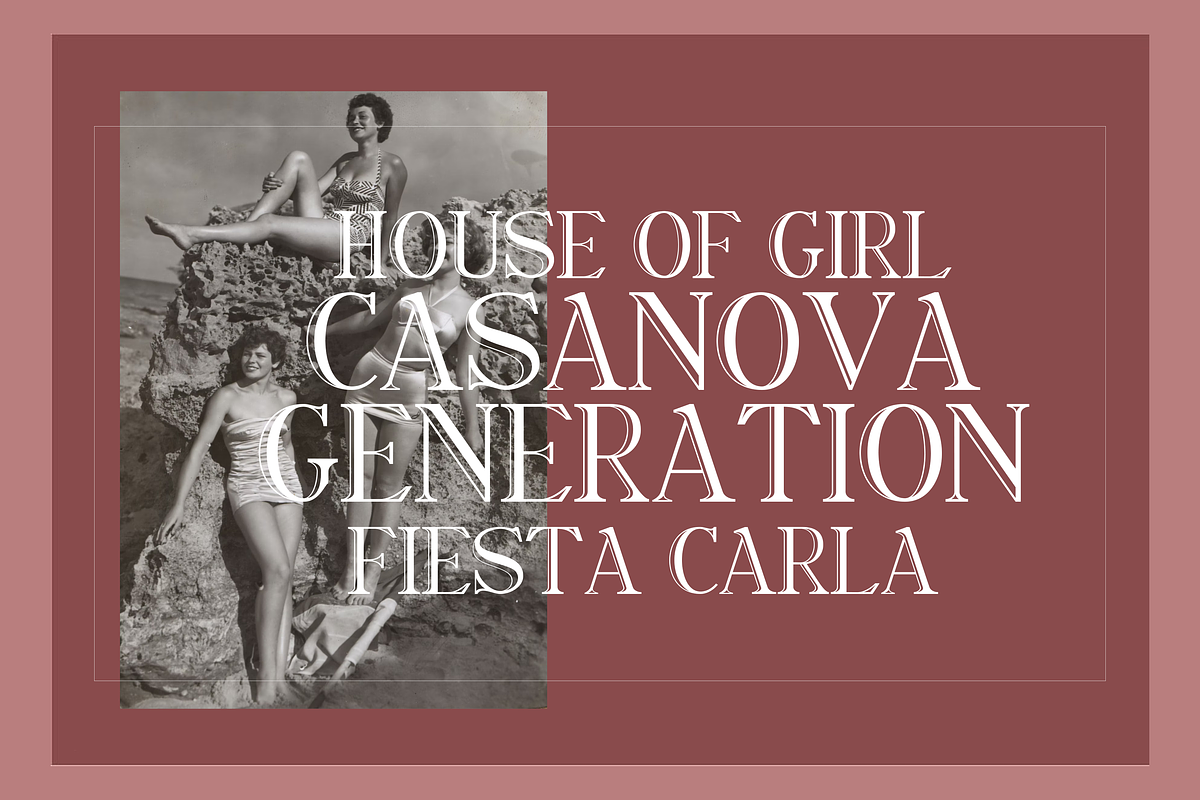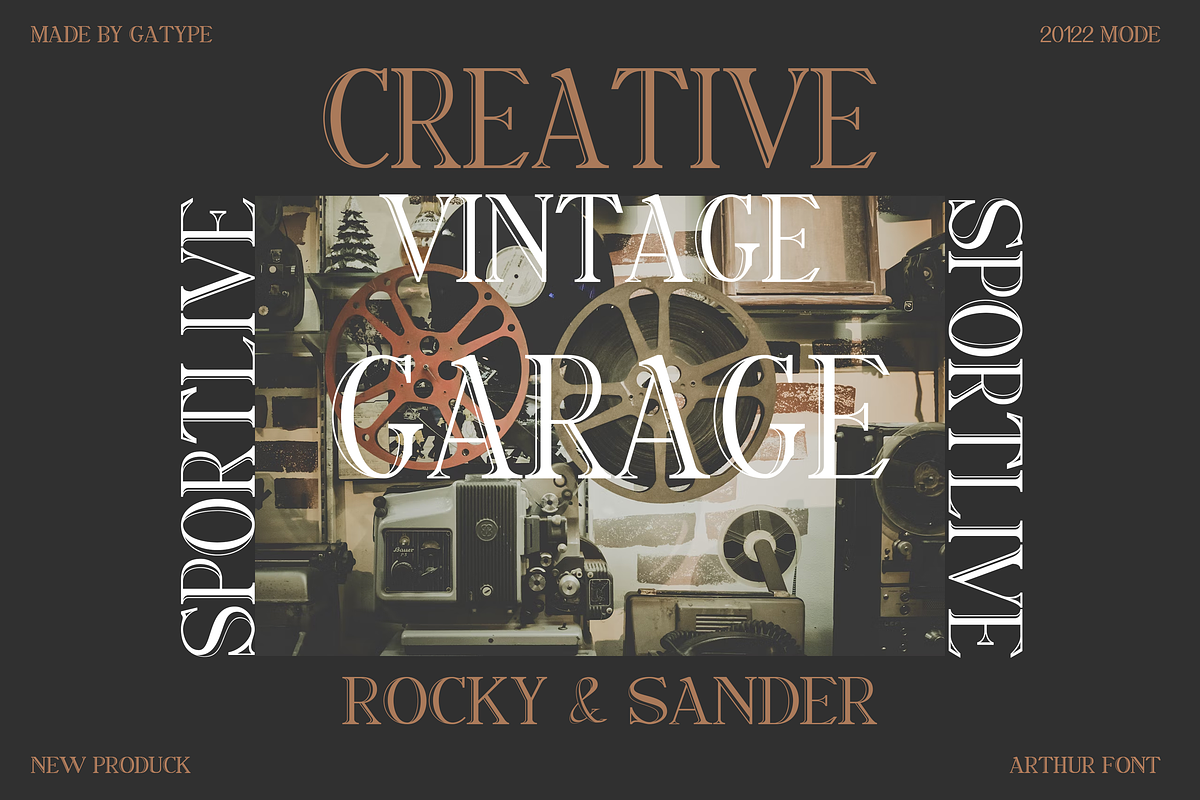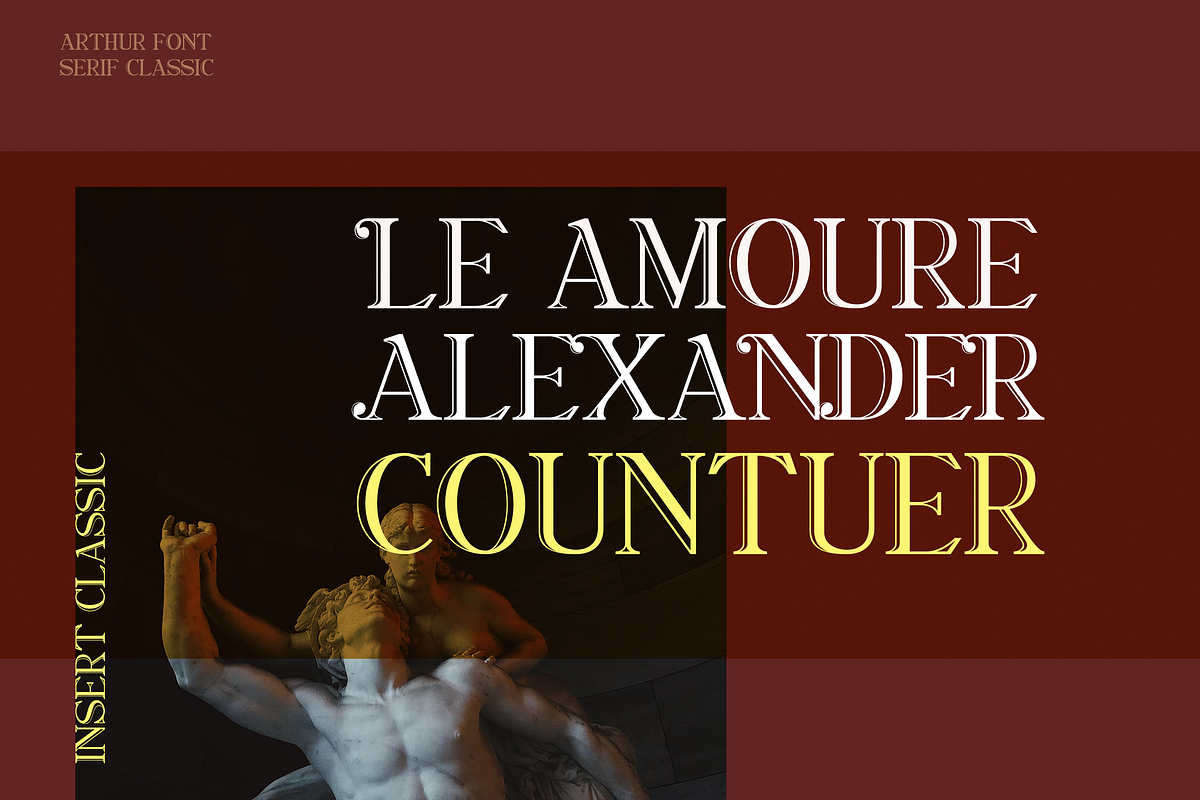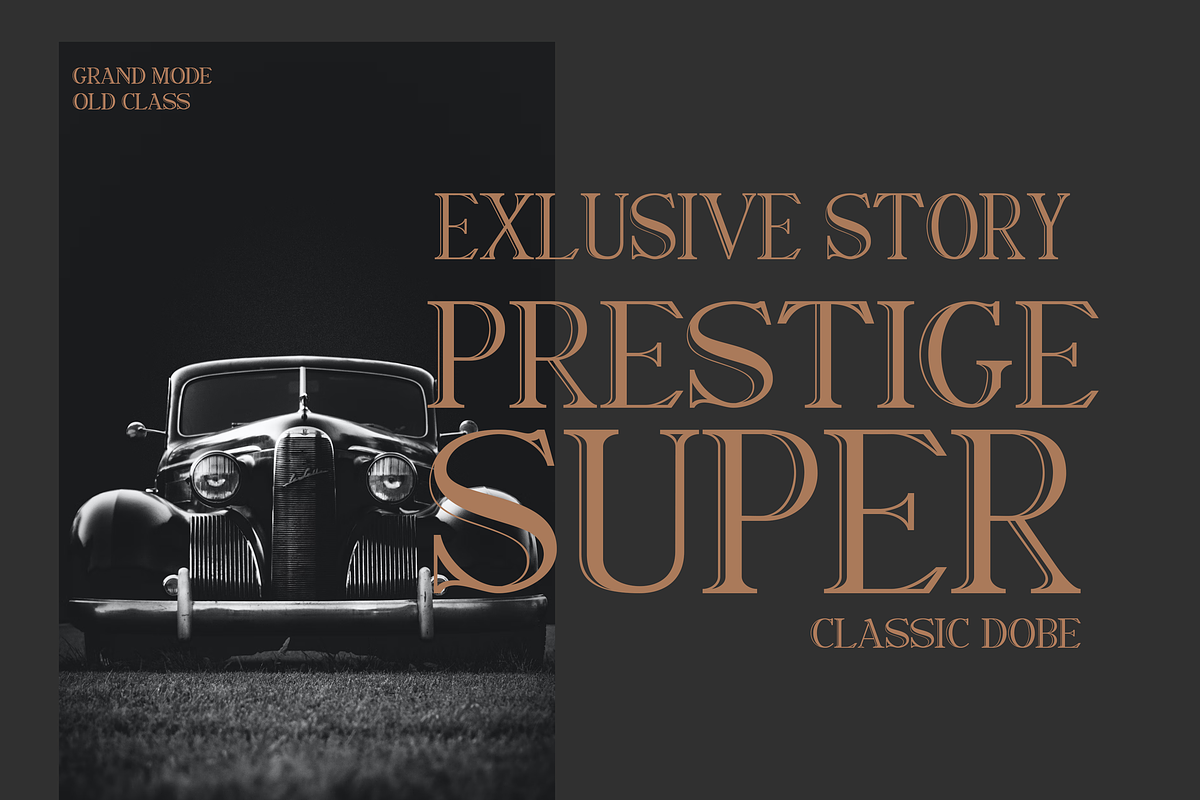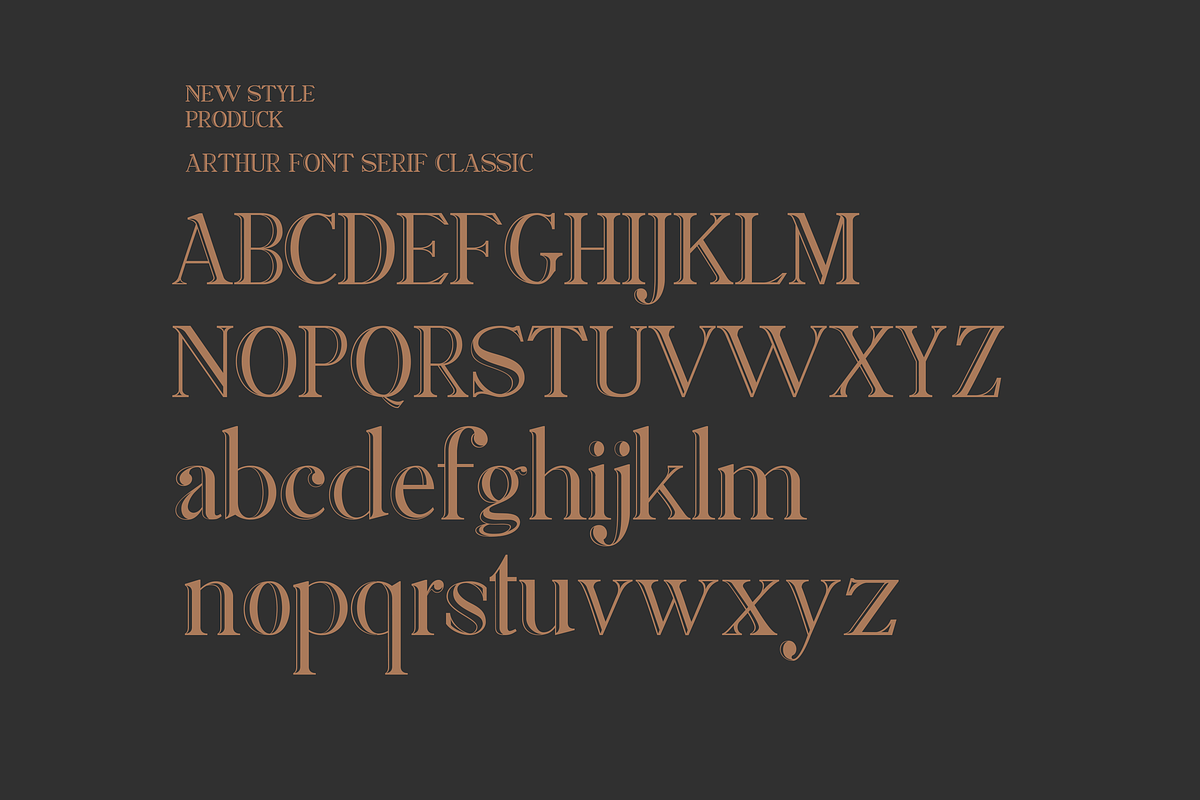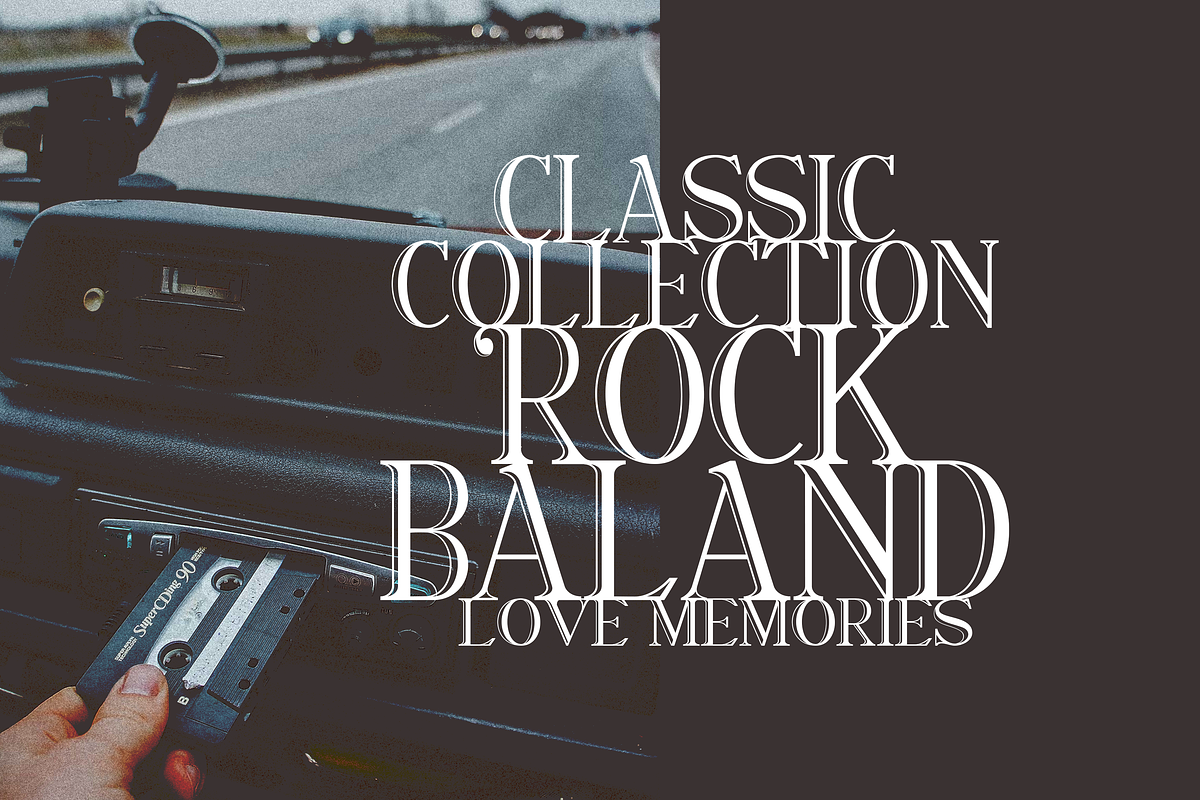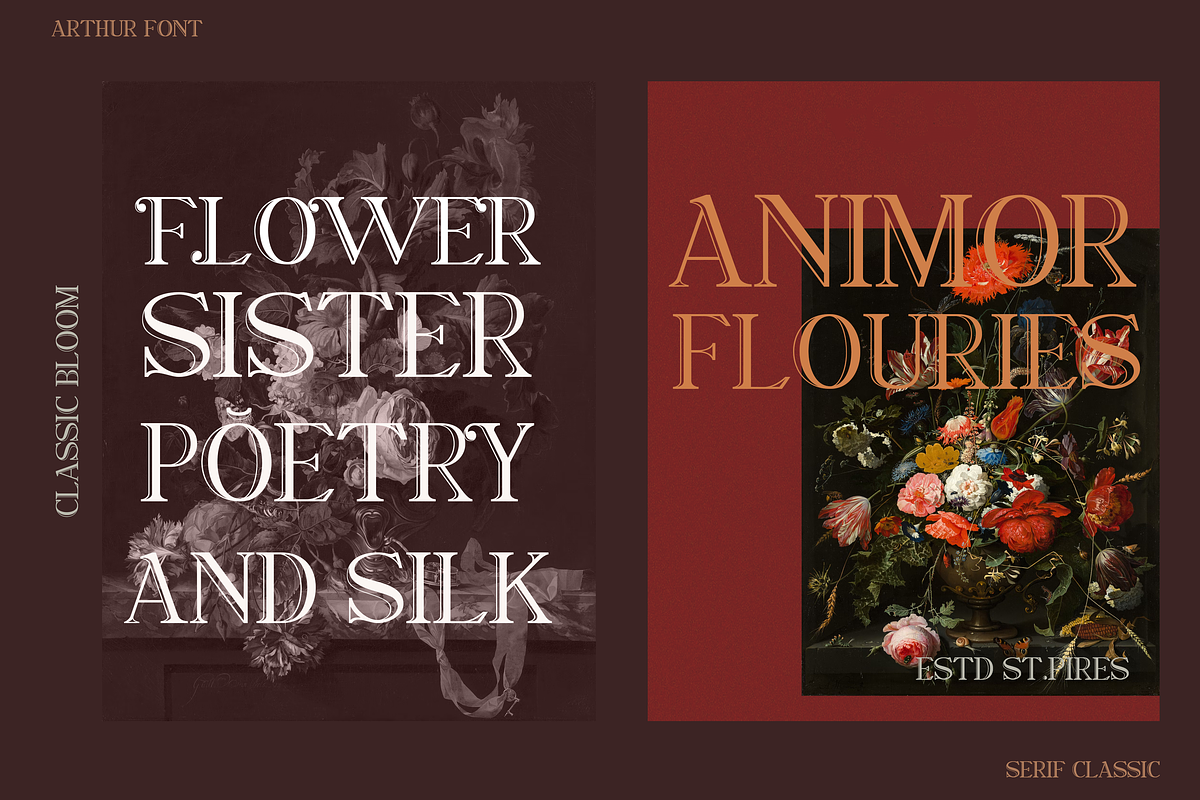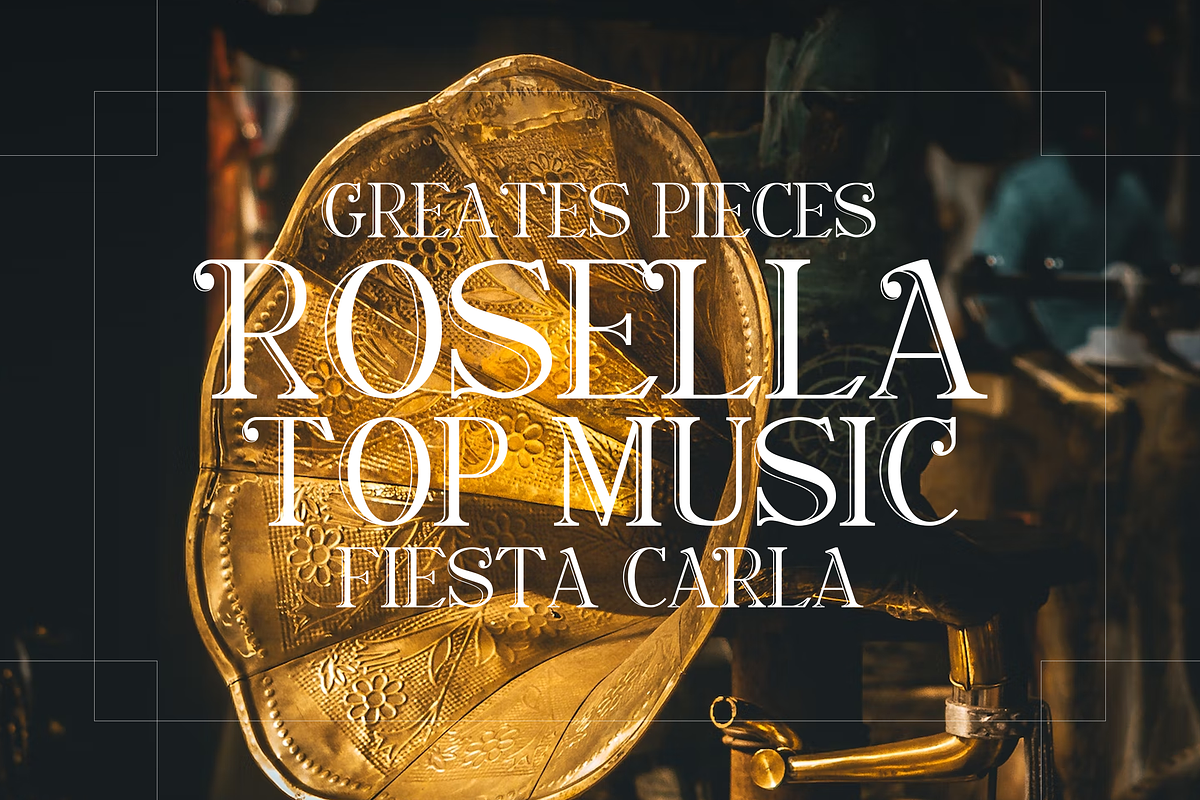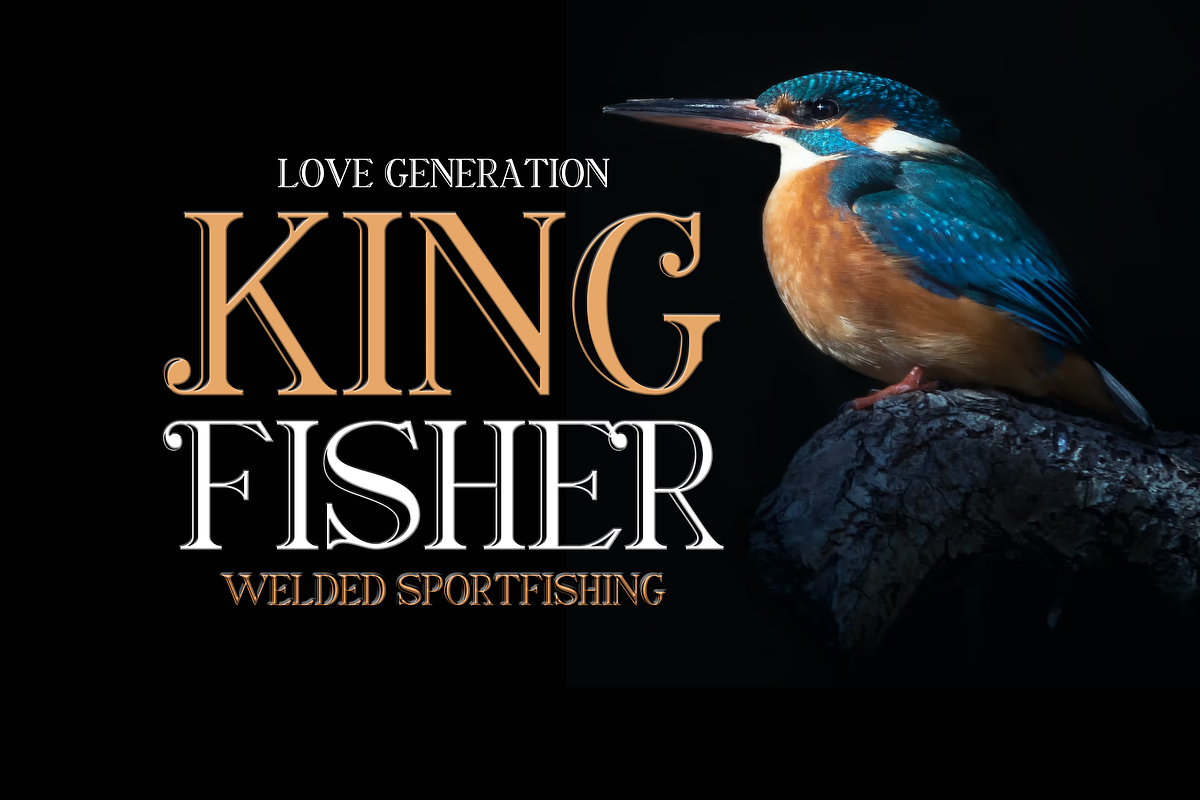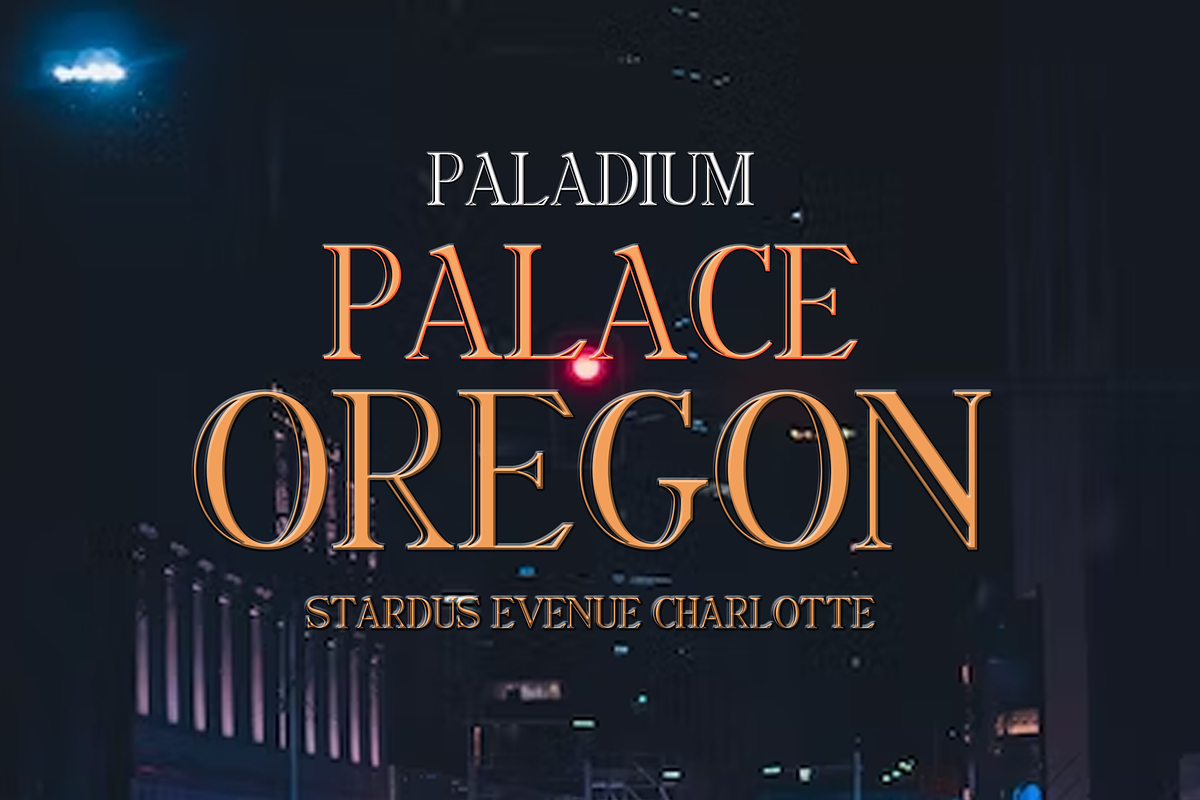
Arthur
Arthur is an edgy modern serif font. The long, classic serifs make for a unique high-contrast typeface that's all stylish. It appears regularly and boldly with lower and uppercase letters, numbers, punctuation marks plus multilingual letters. A must have for every modern graphic designer now!